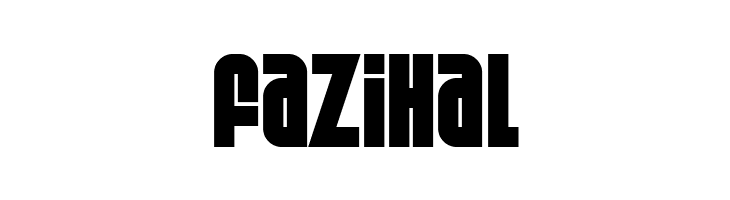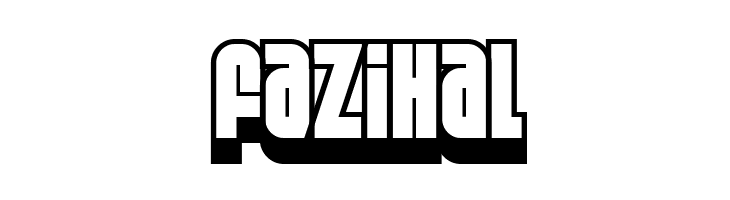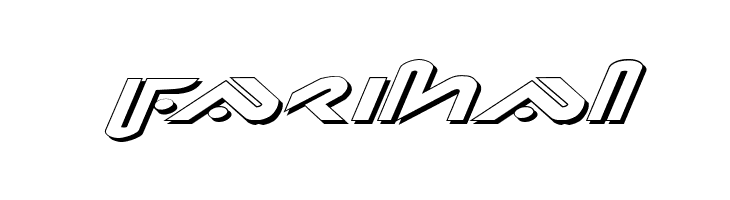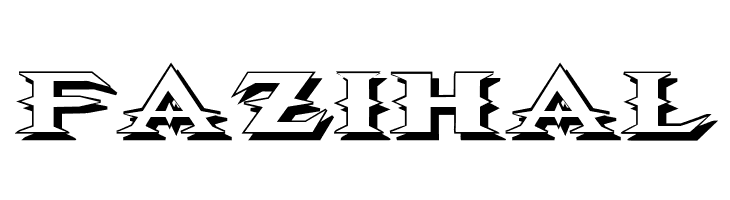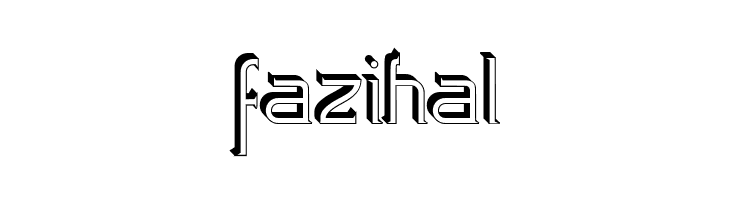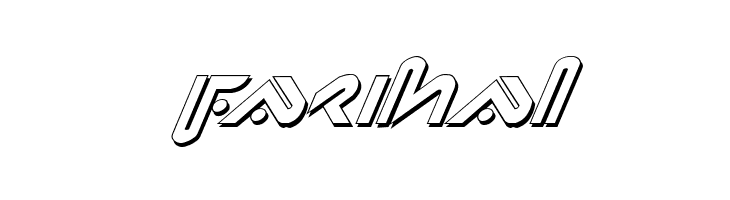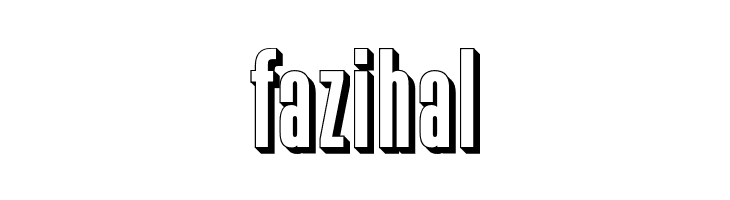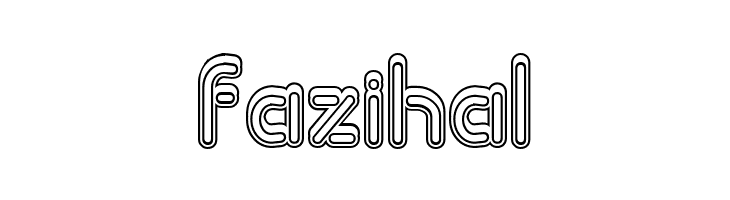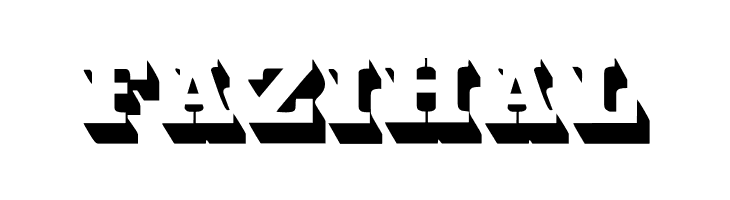
3D Fonts
Broadway Flat 3D Regular Font
Vladimir Nikolic - www.coroflot.com/vladimirnikolic
A bold, 3D geometric font with a modern, impactful style.
Broadway Gradient 3D Italic Font
Vladimir Nikolic - www.coroflot.com/vladimirnikolic
A bold, 3D gradient font with an italic slant, perfect for dynamic headlines.
Broadway Gradient 3D Regular Font
Vladimir Nikolic - www.coroflot.com/vladimirnikolic
A bold, 3D gradient font with a vintage marquee style.
Broeksel Regular Font
A bold, decorative font with a 3D shadow effect and striped texture.
Brovic Inline Extrude Font
A layered, geometric outline font with a vintage, decorative style.
BrownwoodNFShadow Font
A bold, shadowed decorative font with a three-dimensional effect.
BruceDoublePica Beveled Font
A bold, decorative font with a beveled, three-dimensional effect and intricate detailing.
BUCCANEERS OF TAMPA BAY Font
Font by danny91194
The image does not depict a valid font.
Buchanan 3D Font
Iconian Fonts - Daniel Zadorozny - www.iconian.com
A bold, 3D geometric font with a strong visual impact.
Buchanan 3D Italic Font
Iconian Fonts - Daniel Zadorozny - www.iconian.com
A bold, 3D italic font with outlined characters and a modern style.
Buchanan Academy Font
Iconian Fonts - Daniel Zadorozny - www.iconian.com
Bold, geometric font with outlined, three-dimensional characters.
Buchanan Chrome Font
Iconian Fonts - Daniel Zadorozny - www.iconian.com
A bold, geometric font with a retro-futuristic, three-dimensional effect.
Buchanan Chrome Italic Font
Iconian Fonts - Daniel Zadorozny - www.iconian.com
A bold, italicized font with a chrome-like, three-dimensional appearance.
Buchanan Punch Font
Iconian Fonts - Daniel Zadorozny - www.iconian.com
A bold, outlined font with a strong, three-dimensional effect.
Bulksans 3D Font
A bold, 3D geometric font with outlined characters and a modern style.
Bull Italic Font